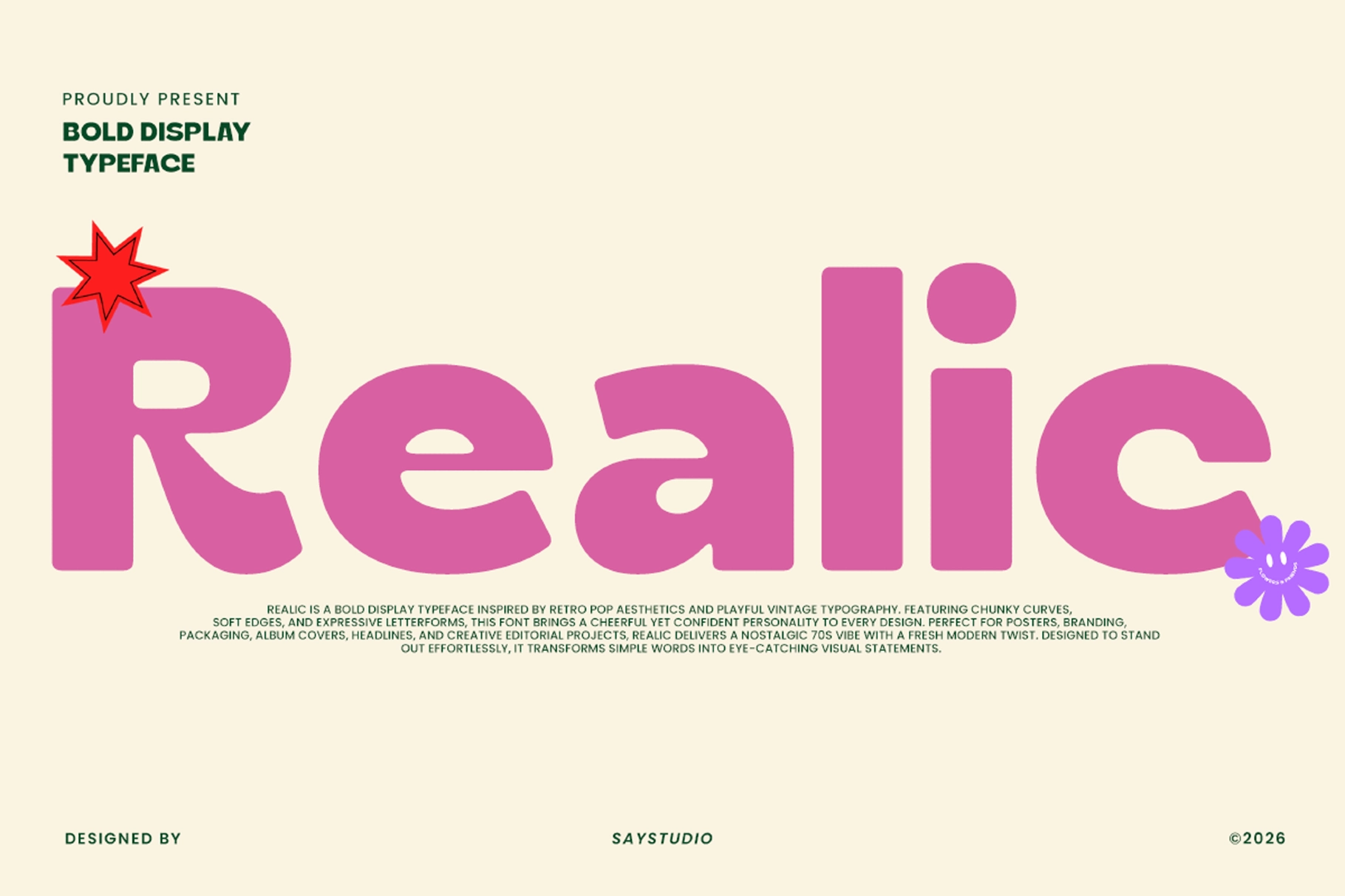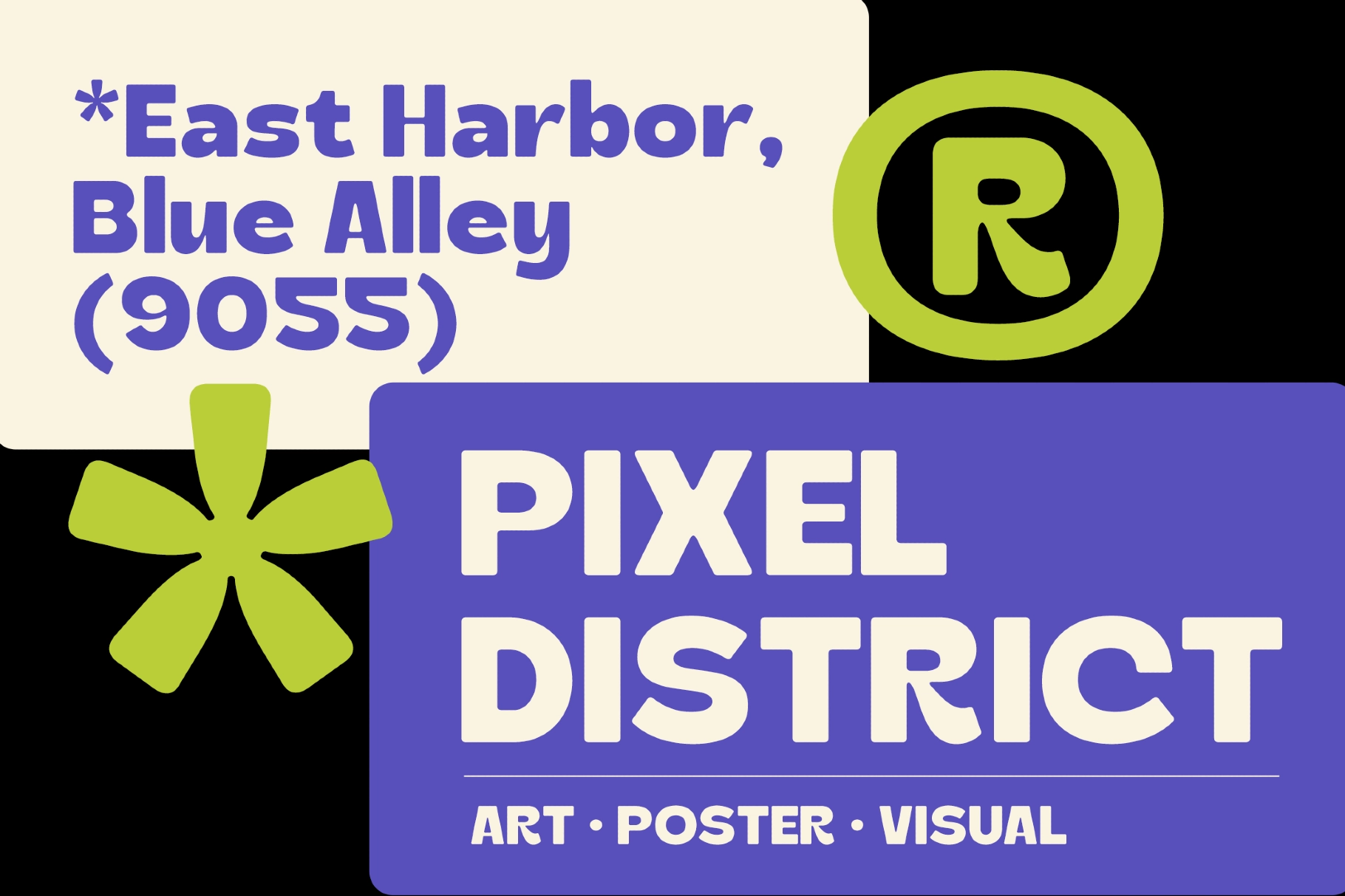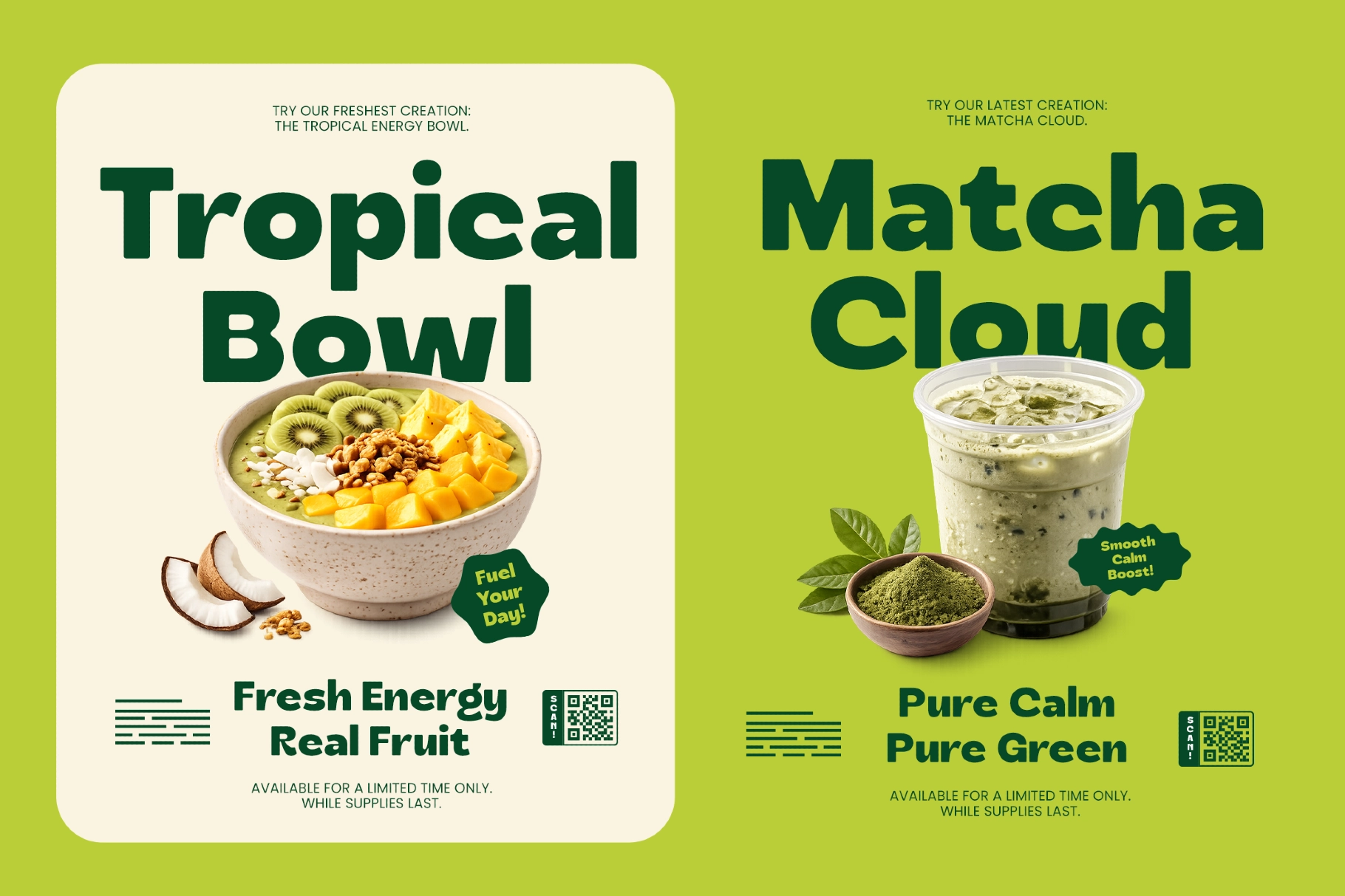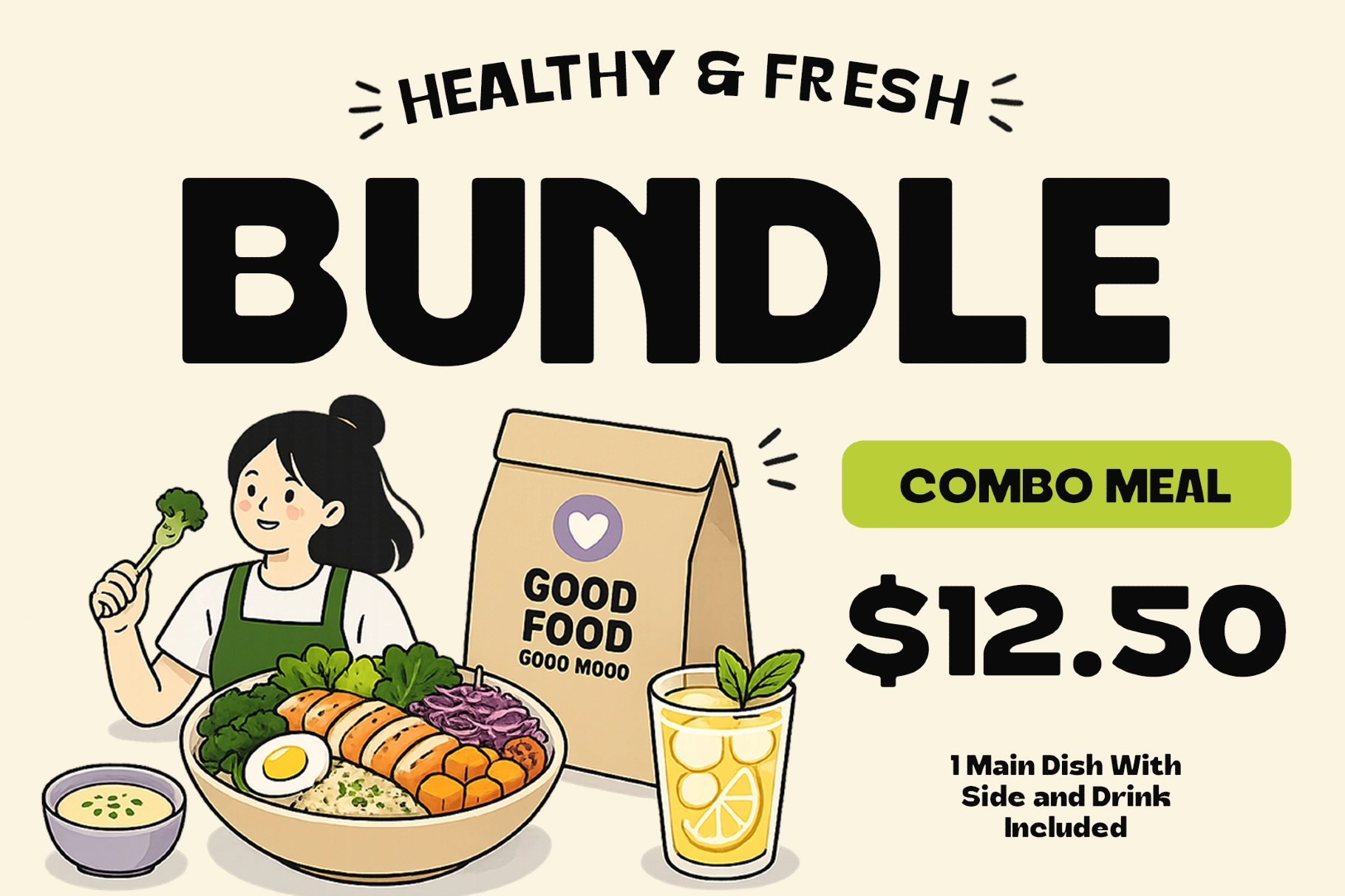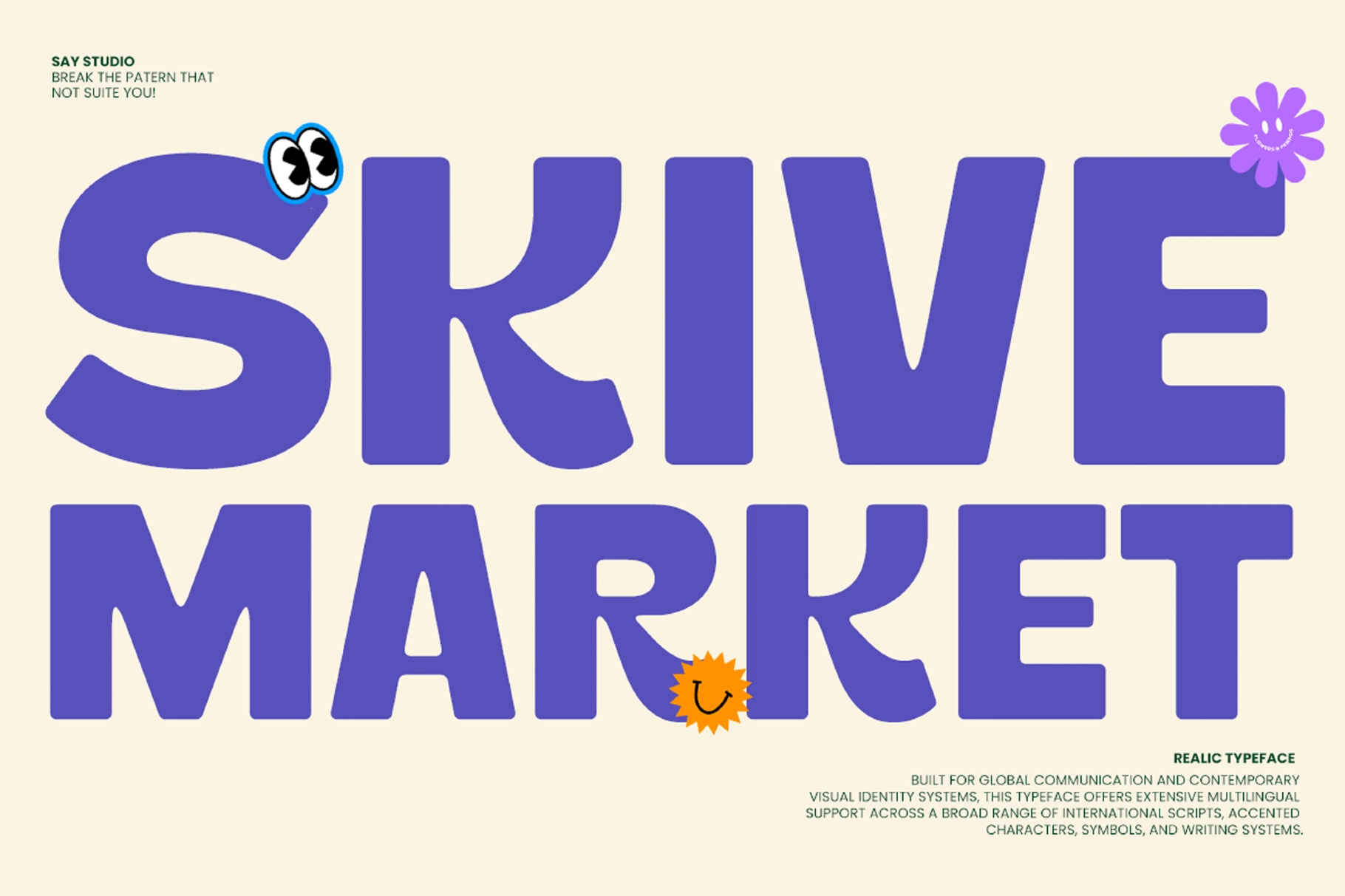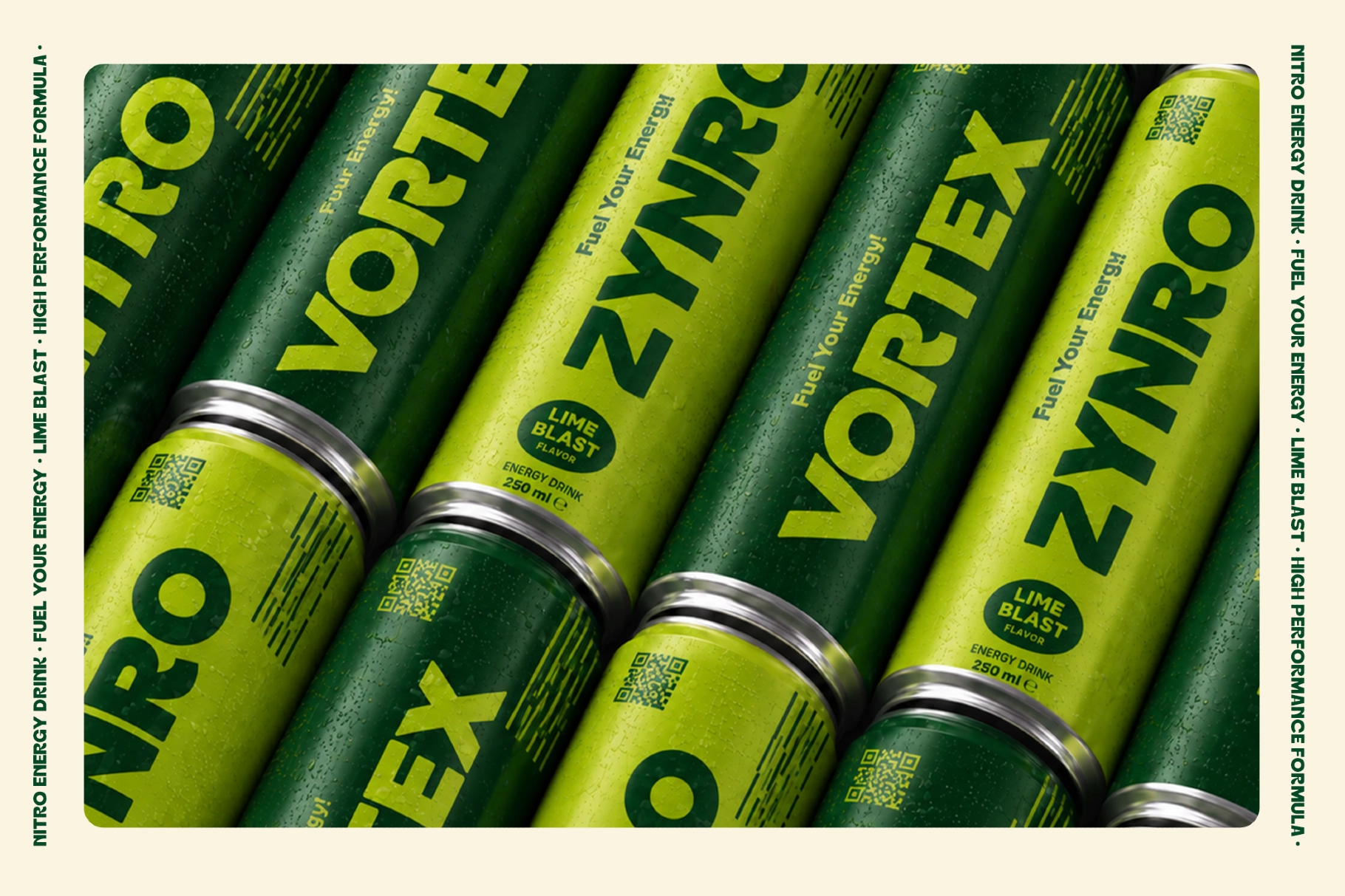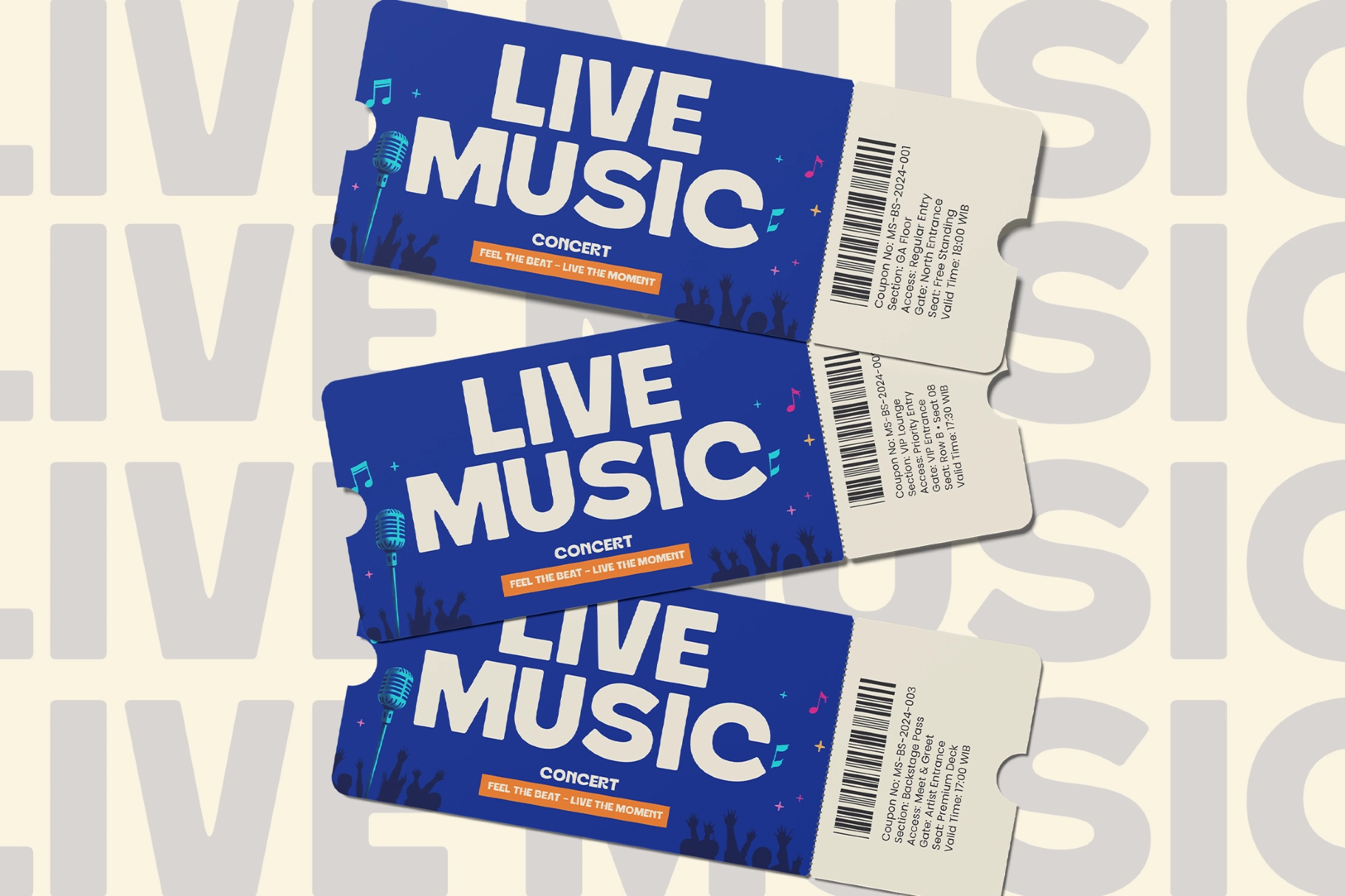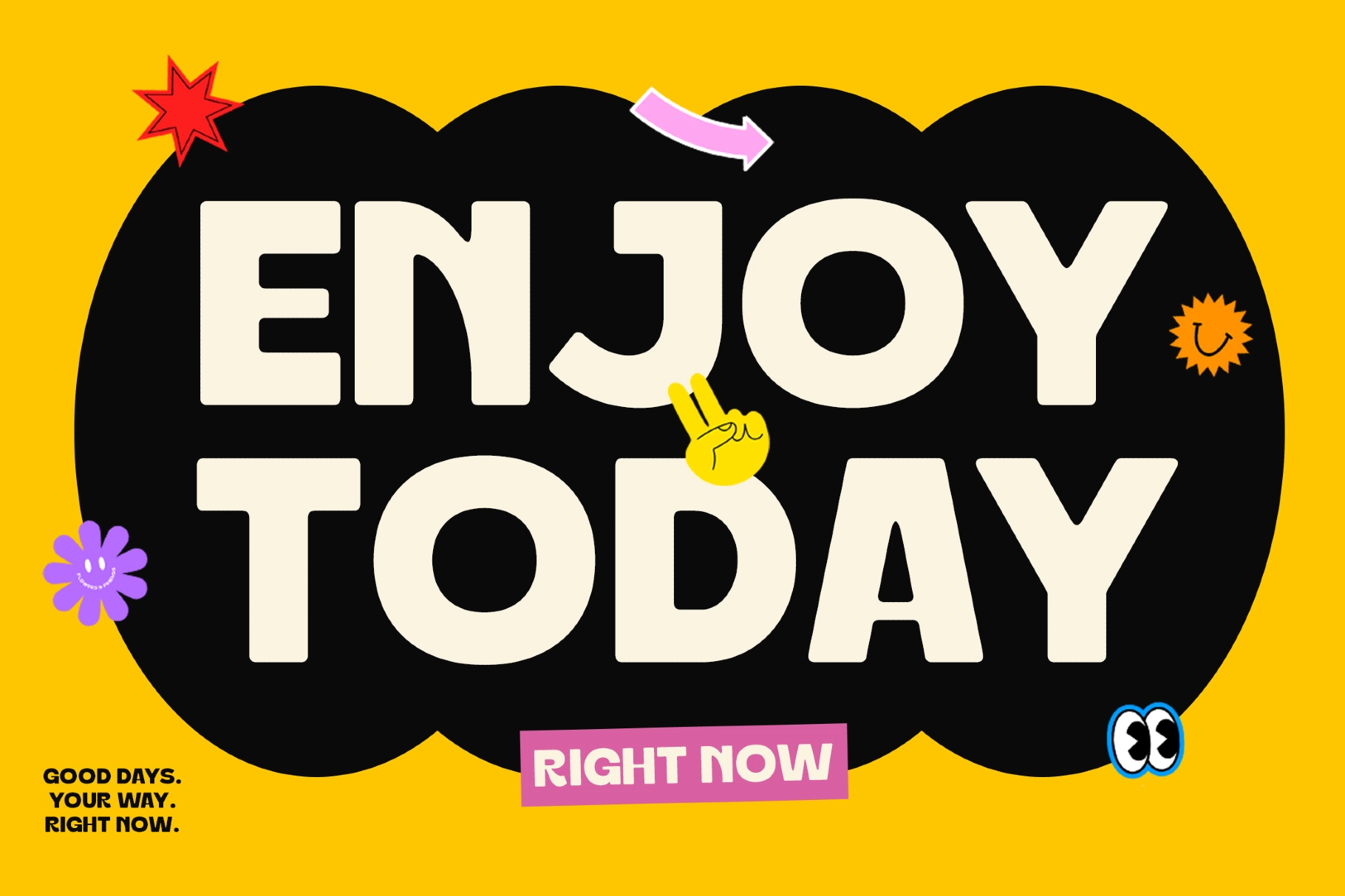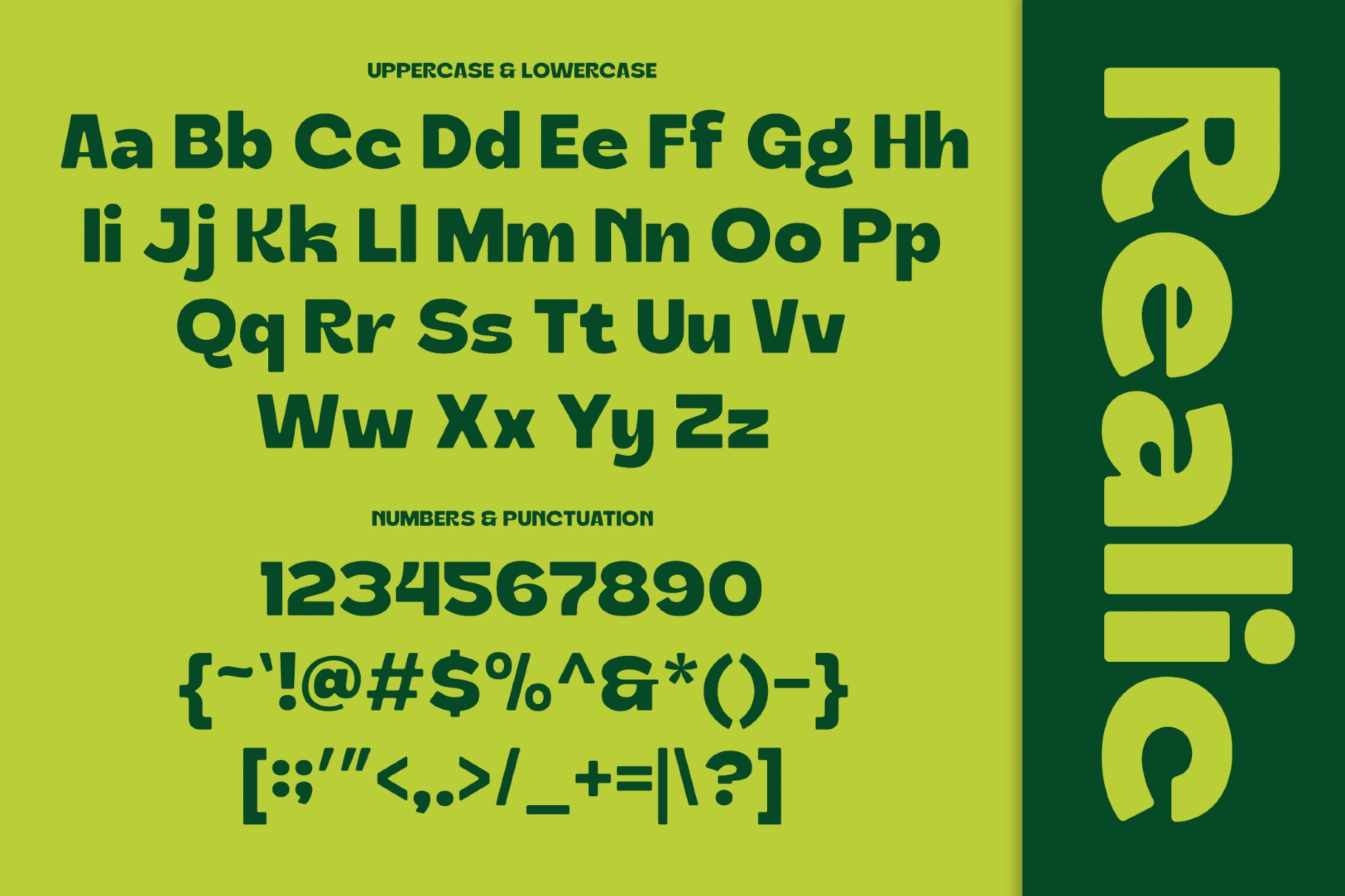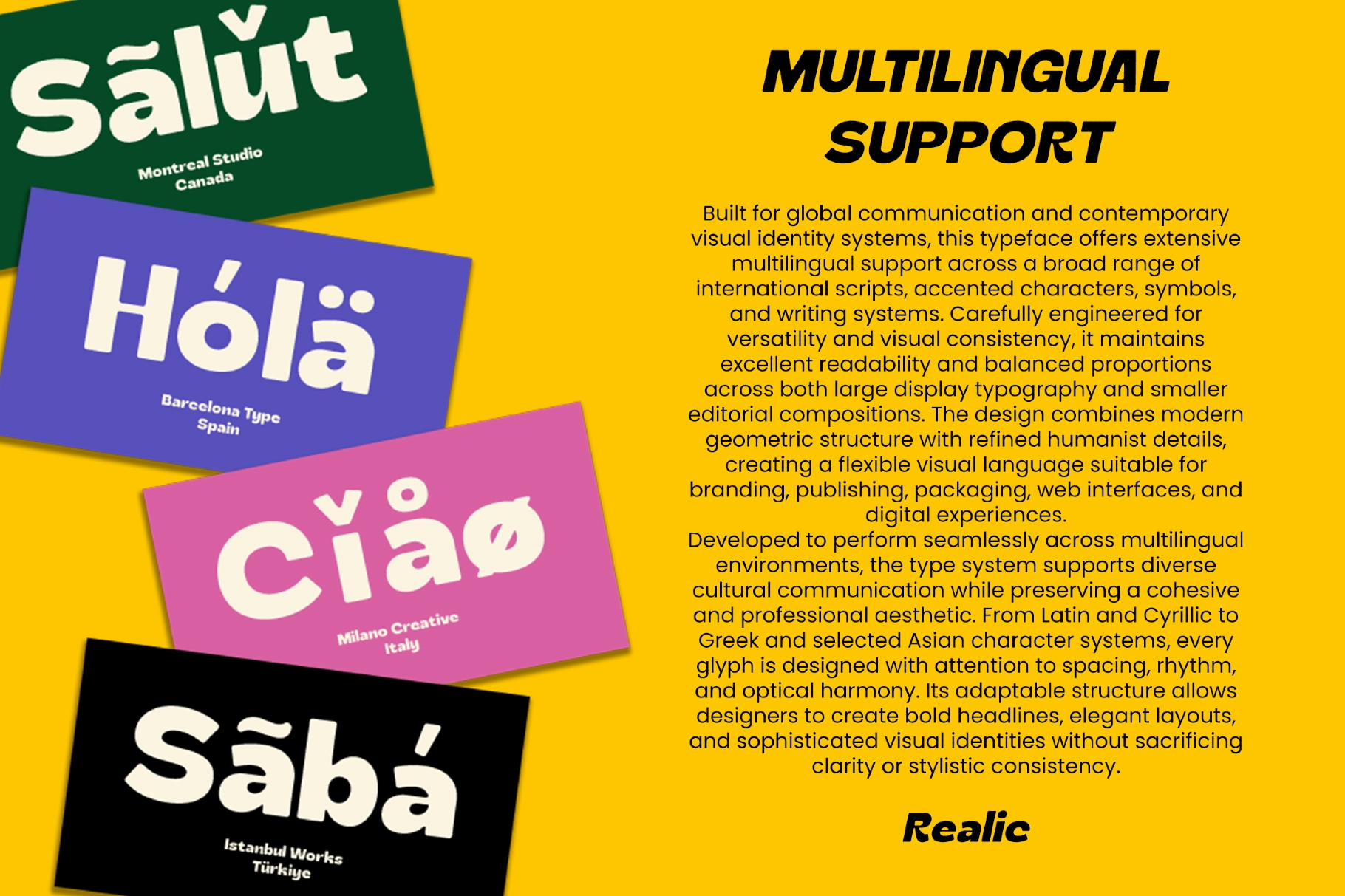
Realic - Bold Round Sans Font
A retro display font with chunky curves, soft corners, and bold letterforms made for loud, cheerful typography. Its rounded shapes and playful cuts give headlines a friendly punch, while the heavy weight keeps each word clear at poster scale.
Realic works well for food packaging, beverage labels, event posters, album covers, merch graphics, social media posts, editorial headlines, website banners, kids’ branding, sticker designs, café menus, product campaigns, and playful identity systems. The italic style adds extra motion for callouts, secondary headlines, and layouts that need a quick nudge of personality.
• 2 styles: Regular, Italic